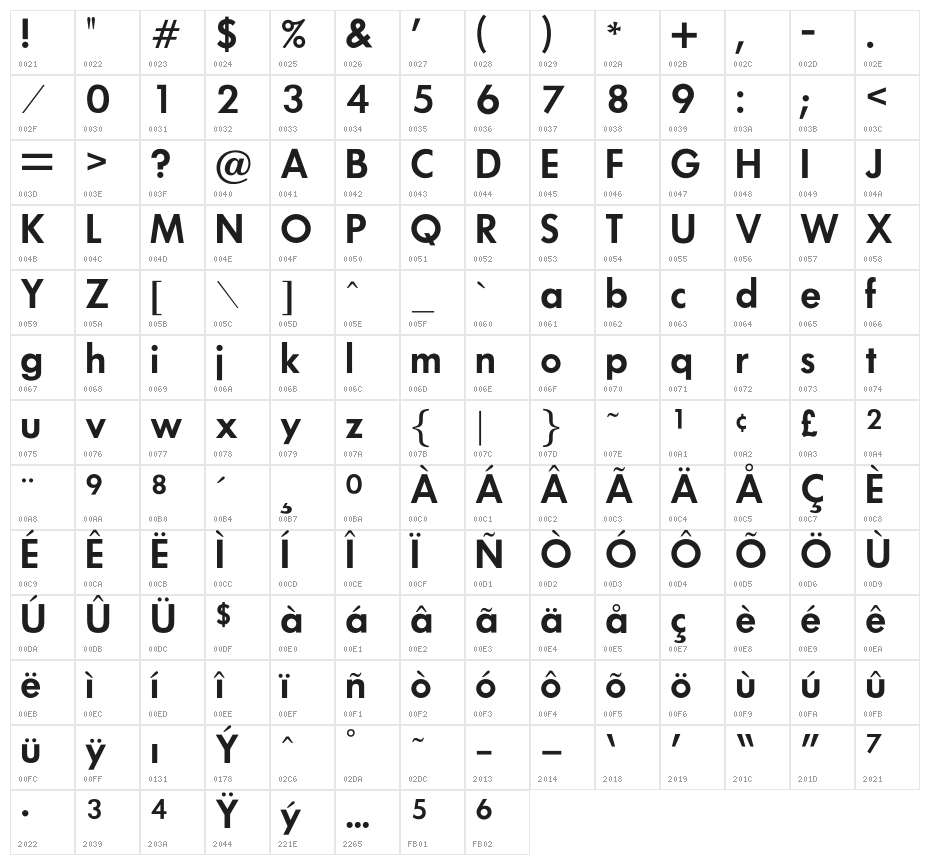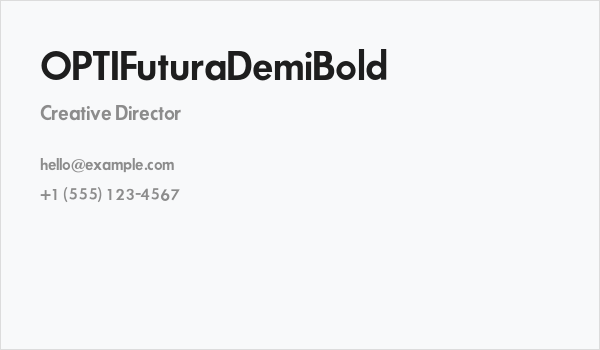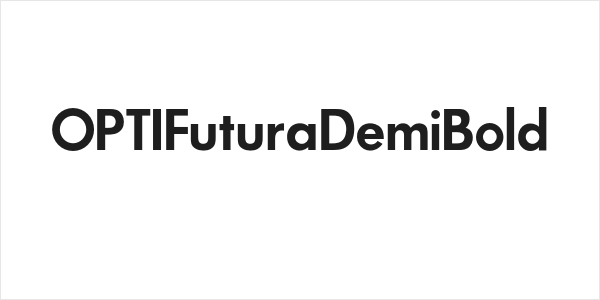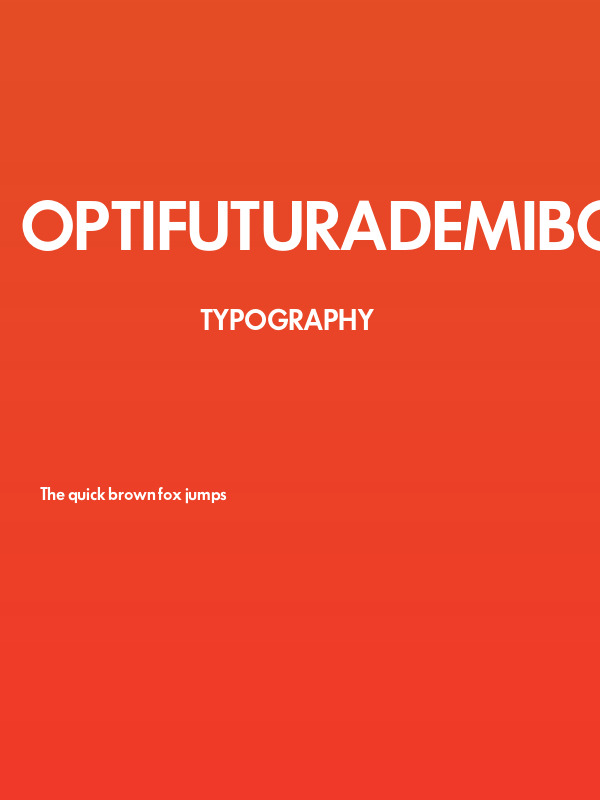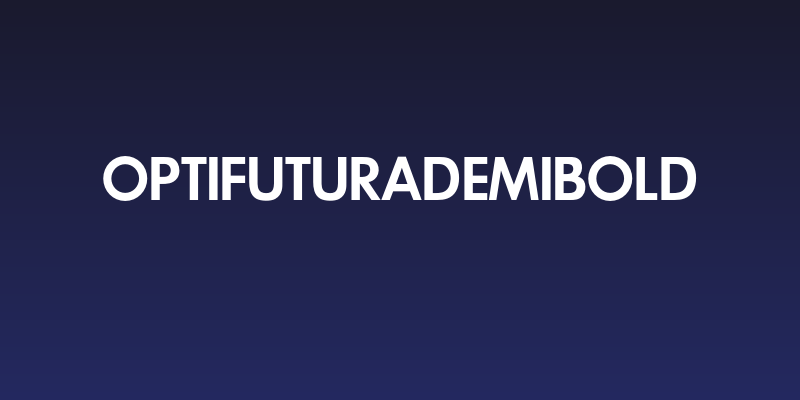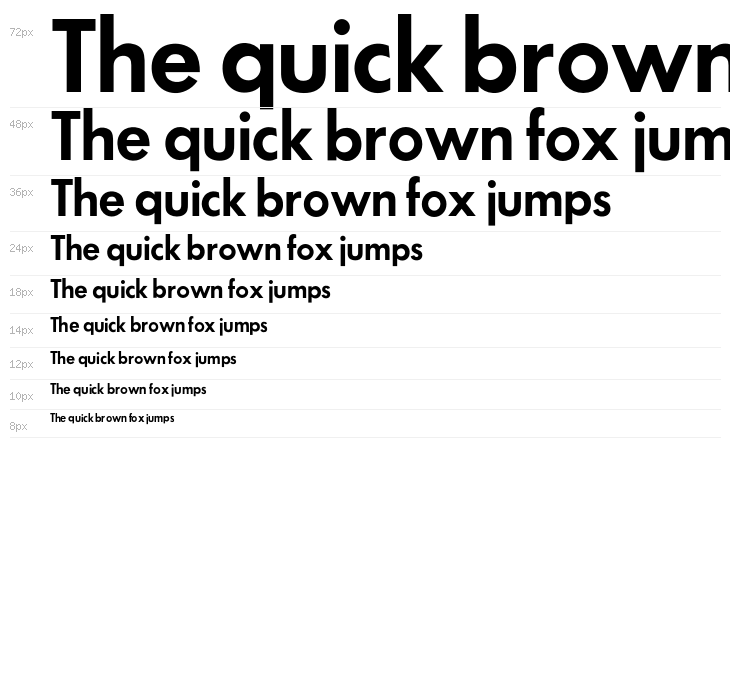
OPTIFuturaDemiBold Font
OPTIFuturaDemiBold Description
This font features a clean, geometric design with a modern aesthetic. The characters are bold and uniform, with a consistent stroke width that gives it a strong presence. The uppercase and lowercase letters are well-proportioned, and the numerals are clear and easy to read. The special characters are distinct and maintain the overall style of the font. Its simplicity and clarity make it versatile for various design applications.
Use CaseHeadlines, Logos, Branding
Proposed ProjectsIdeal for branding, advertising, headlines, and digital media where a strong, modern impression is needed.